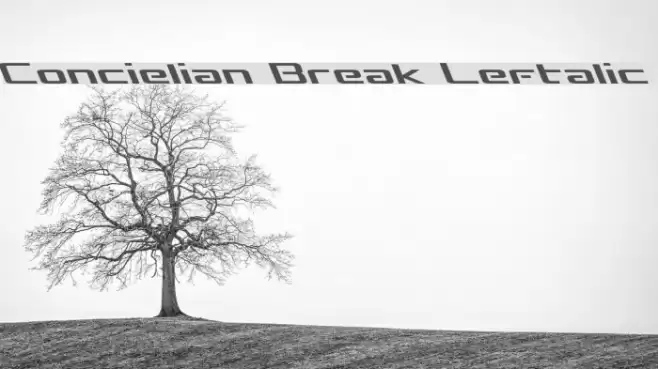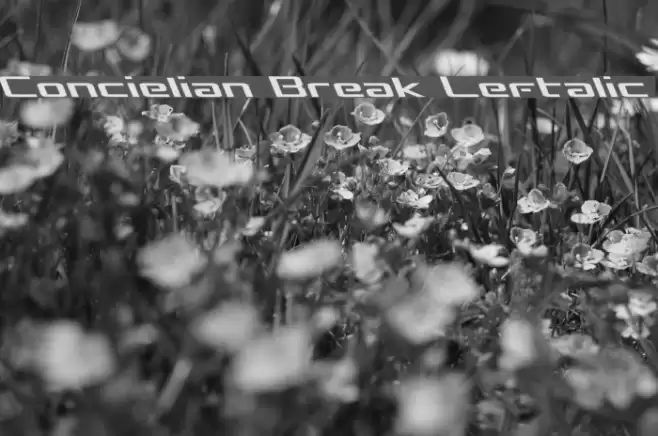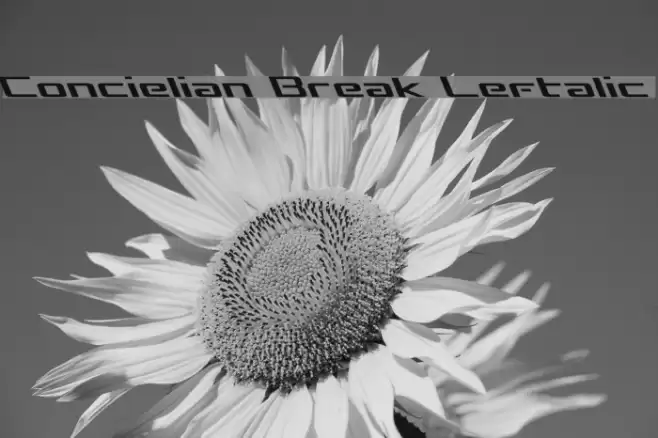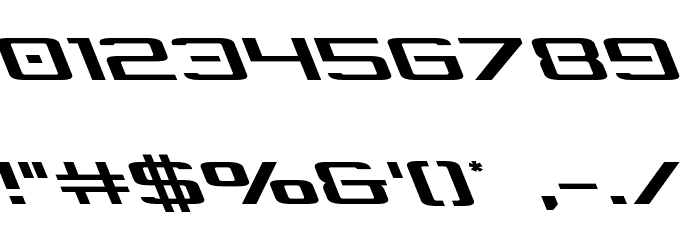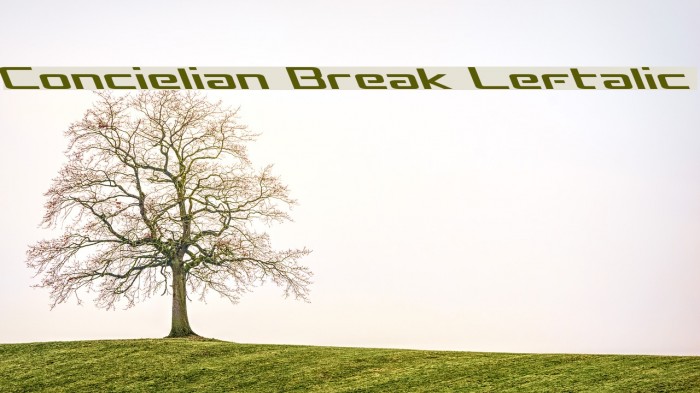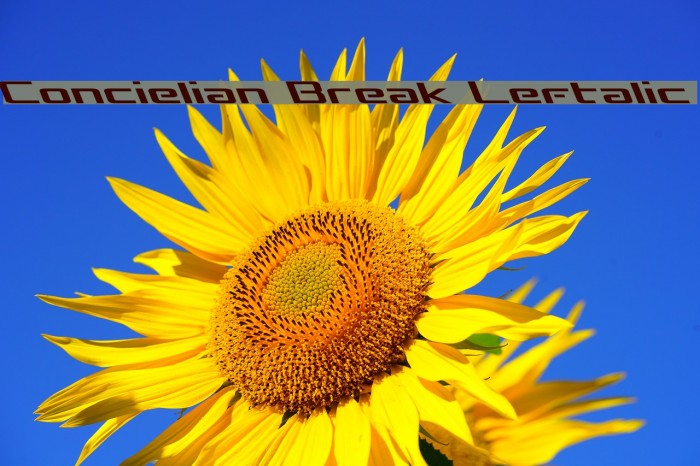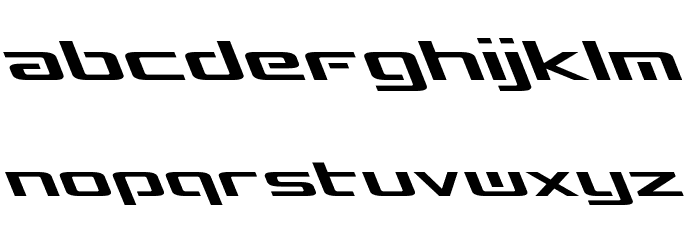
Concielian Break Leftalic Font
Concielian Break Leftalic Description
This font features a futuristic and angular design, characterized by its sharp edges and geometric forms. The letters are slightly slanted, giving a dynamic and forward-moving appearance. The uppercase and lowercase letters maintain a consistent style, with a distinct break in the middle of each character, adding a unique visual interest. The numerals and special characters follow the same design principles, ensuring uniformity across all glyphs. This font's bold and striking look makes it suitable for modern and tech-oriented projects.
A futuristic, angular font with sharp edges and a dynamic slant from Uncategorized fonts.
- Proposed Projects: Ideal for technology branding, sci-fi movie posters, video game titles, and modern advertising.